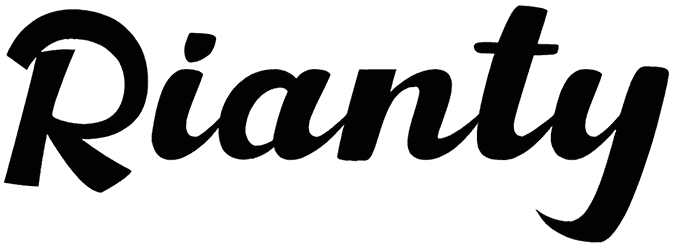
Rianty Font
Searching for an artistic and cozy travel font, be quick to move on Rianty; its charming marker design gives it a friendly and personality sense that would be potential in pleasing any eyeful of audience.
Come on to catch this predominant font to adorn many sweet displays; posters, greeting cards, T-shirts, book covers, animation, and so forth with its inky brush style. Pick a couple of other brush fonts from our extensive catalog to use alongside this one.